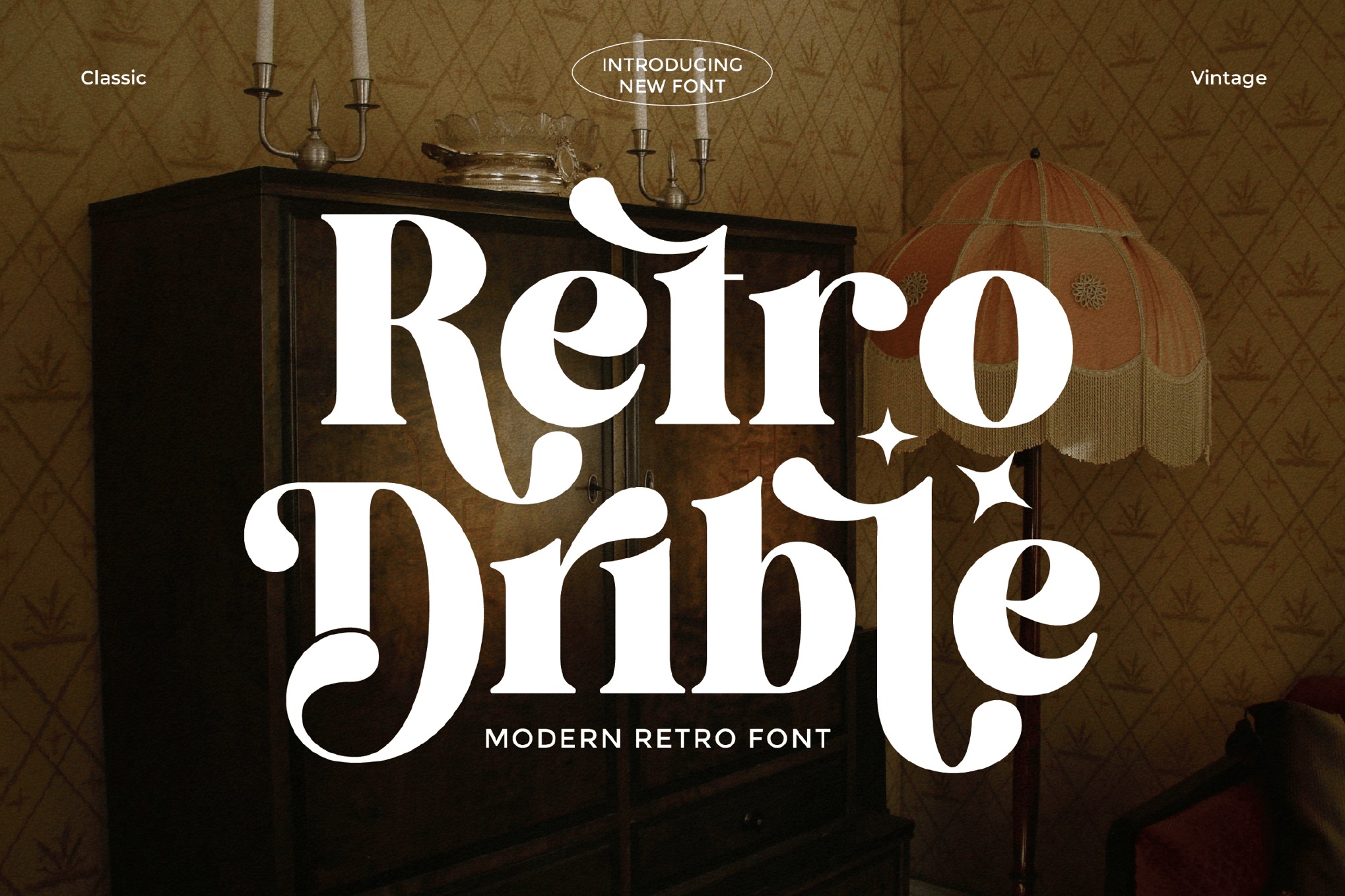
Retro Drible Font
Retro Drible Font is a flexible and reliable font created to fit multiple design needs, from branding and packaging to social media and editorial layouts. Retro Drible is a modern retro font that blends nostalgic charm with a fresh contemporary twist. Inspired by classic vintage typography, this typeface brings bold curves, playful swashes, and elegant details that perfectly capture the essence of timeless design. Perfect for creating standout headlines, branding, posters, packaging, and logo designs that demand both character and style.